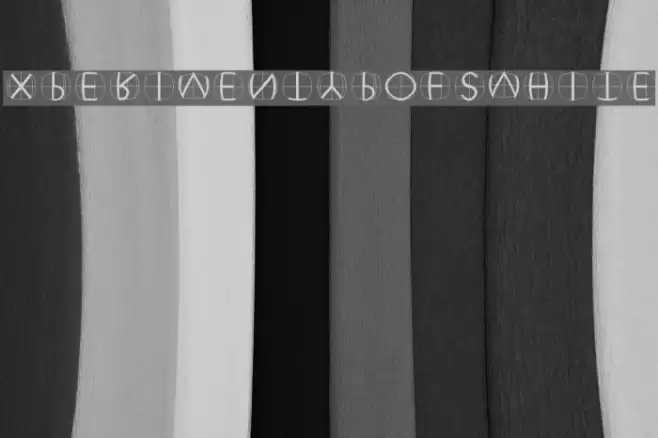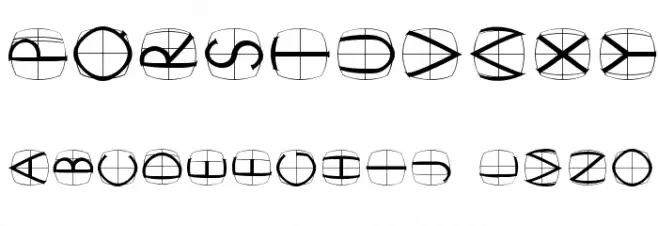
XperimentypoFSWhite Font
XperimentypoFSWhite Description
This font features a unique and experimental design, characterized by its geometric and circular framework. Each letter is encased within a circular grid, giving it a structured yet abstract appearance. The strokes are bold and vary in thickness, creating a high contrast that draws attention. The design incorporates a blend of straight lines and curves, resulting in a modern and artistic style. The font's distinctiveness makes it ideal for creative projects that require a standout visual element.
A bold, geometric font with high contrast and circular grid design from Uncategorized fonts.
- Overall Style: Modern, Artistic